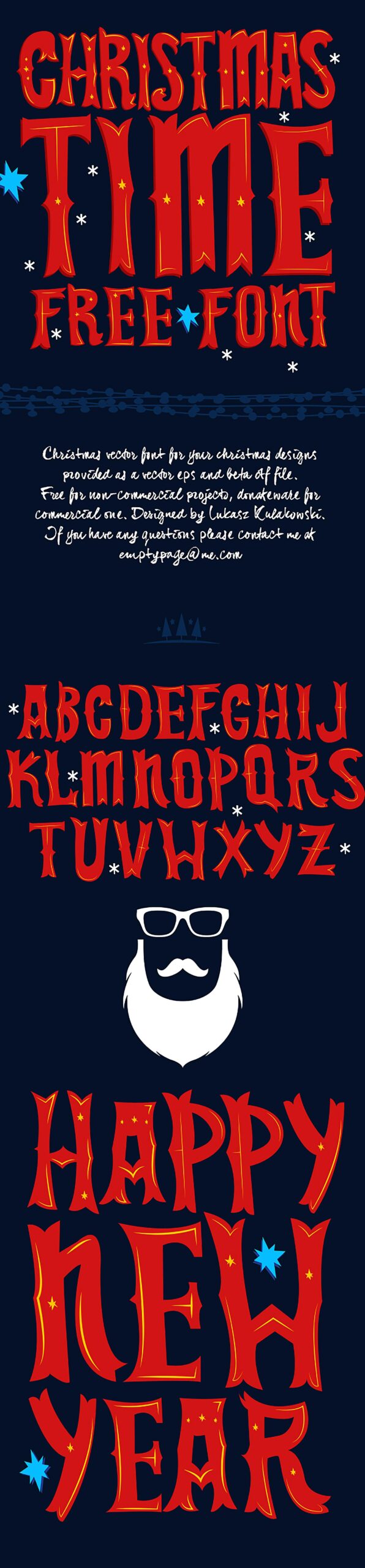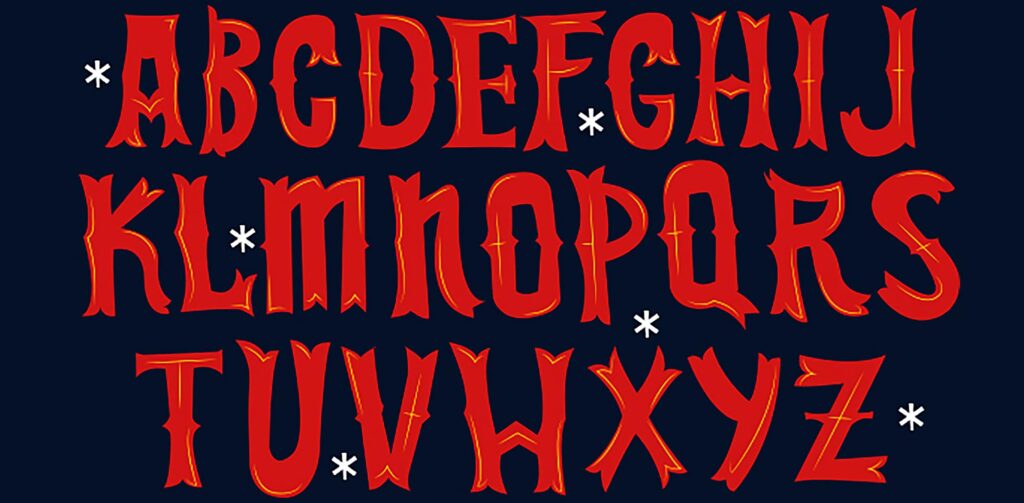
With holiday season upon us, and Christmas Day just four weeks away, now’s the time to get your cards, decorations, and promotions finalized. To help you deliver designs that Santa’s elves would be proud of, we’ve arranged this free font for Webdesigner Depot readers.
Designed by Lukasz Kulakowski, this festive font is an original typeface reminiscent of traditional American woodblock typefaces from the late 19th and early 20th centuries. The hand-lettered style is perfect for this winter’s festivities, but would be equally useful for any project that requires a unique, craft feel.